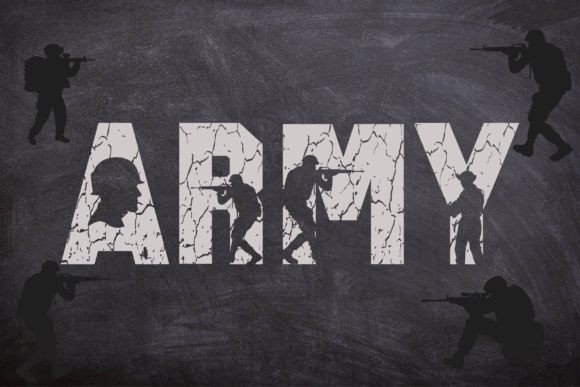
The Army Font: A Decorative Powerhouse for Your Creative Projects
I’ll never forget the time I was working on a branding project for a fashion label, and my client asked for a font that was “edgy, yet approachable.” I scoured the internet, trying out font after font, but nothing seemed quite right. That was until I stumbled upon the Army font. With its unique blend of ruggedness and style, it instantly captured the essence of the brand. In this article, I’ll share my experience with the Army font, and explore its features, uses, and alternatives.
An Honest Review of the Army Font
- ✨ Unique and original design that’s perfect for standing out
- ✅ Highly versatile and adaptable to various design contexts
- 💥 Excellent for logotypes, headlines, and titles
- 🎨 Great for creative projects, such as posters, music, movies, games, and more
While the Army font is an excellent choice for many projects, there are a few things to keep in mind:
- 🤔 May not be the best choice for body text or long-form content due to its decorative nature
- ⚠️ Some characters or glyphs may not be suitable for use in specific contexts, such as coding or technical writing
A Practical Guide to Using the Army Font
If you like the Army font, you may also enjoy the following similar fonts:
- Blaka: A bold, stencil-inspired font with a similar rugged feel
- Military: A clean, sans-serif font with a strong military aesthetic
- Stencil: A classic stencil font with a versatile, adaptable design
- Impact: A bold, sans-serif font with a strong, impactful personality
The Designer Inspiration Behind the Army Font
The Army font was designed with the intention of creating a bold, eye-catching font that would stand out in any design context. Inspired by military typography and stencil designs, the font’s creator aimed to craft a font that was both rugged and stylish. The result is a font that’s perfect for designers, crafters, and creative hobbyists looking to add a touch of edge to their projects.
Q: What is the Army font best used for?
A: The Army font is best used for logotypes, headlines, titles, and other design elements where a bold, eye-catching font is desired.
Q: Is the Army font suitable for body text?
A: While the Army font can be used for body text, it may not be the best choice due to its decorative nature. It’s better suited for headlines, titles, and other design elements.